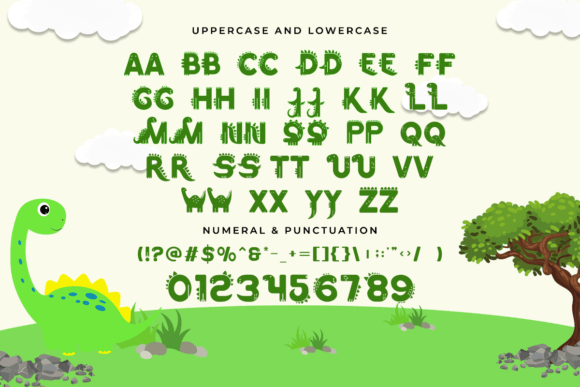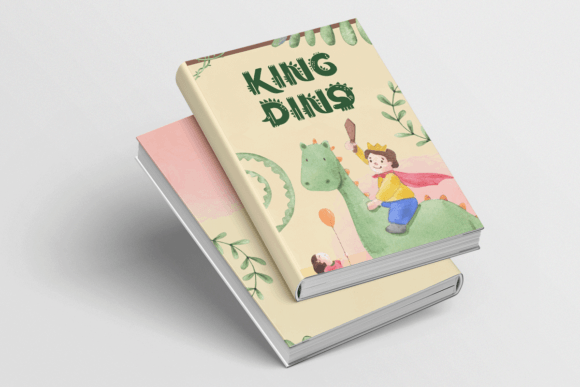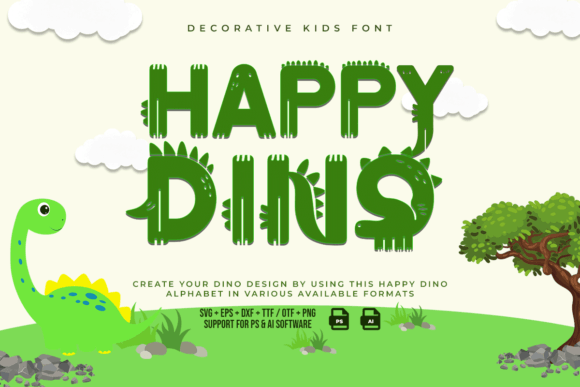
Bring Joy and Excitement to Your Projects with Happy Dino Modern Dino Kids Font!
Are you looking for a fun and engaging font to add a touch of excitement to your designs? Look no further than the Happy Dino Modern Dino Kids Font! This lively and contemporary font is perfect for designers, crafters, and educators who want to bring a burst of happiness and prehistoric fun to their projects.
Perfect for Children’s Books and Educational Materials
The Happy Dino Modern Dino Kids Font is ideal for children’s books, educational materials, and other projects that require a fun and engaging design. The font features cheerful dinosaur characters that are sure to captivate and engage young readers, making learning and creativity a delightful experience. Whether you’re creating a children’s book, a worksheet, or a educational poster, this font is sure to add a touch of excitement and joy to your design.
More Than Just a Font
The Happy Dino Modern Dino Kids Font is more than just a font – it’s a design experience. With its PUA encoding, you can access all of the cute glyphs and swashes with ease, allowing you to create unique and engaging designs that will stand out from the crowd. The font is perfect for a variety of projects, including:
• Children’s books and educational materials
• Party invitations and decorations
• Worksheets and educational posters
• Craft projects and DIY designs
Key Features of Happy Dino Modern Dino Kids Font
The Happy Dino Modern Dino Kids Font has several key features that make it the perfect choice for designers and crafters. Some of the key features include:
• PUA encoded for easy access to glyphs and swashes
• Cheerful dinosaur characters that are sure to engage young readers
• Lively and contemporary design that’s perfect for kids’ projects
• Perfect for children’s books, educational materials, party invitations, and more
Why Choose Happy Dino Modern Dino Kids Font?
There are many fonts to choose from, but the Happy Dino Modern Dino Kids Font stands out from the crowd. Here are just a few reasons why:
• Unique and engaging design that’s sure to capture the attention of young readers
• PUA encoding makes it easy to access all of the glyphs and swashes
• Perfect for a variety of projects, from children’s books to party invitations
• High-quality design that’s easy to read and use
Tips for Using Happy Dino Modern Dino Kids Font
Here are a few tips for using the Happy Dino Modern Dino Kids Font in your designs:
• Use it to create eye-catching headings and titles that will grab the attention of young readers
• Pair it with other fun and playful fonts to create a unique and engaging design
• Use the glyphs and swashes to add a touch of personality to your design
• Experiment with different colors and textures to bring your design to life
The Happy Dino Modern Dino Kids Font is a fun and engaging font that’s perfect for designers, crafters, and educators who want to bring a burst of happiness and prehistoric fun to their projects. With its PUA encoding, cheerful dinosaur characters, and lively design, this font is sure to captivate and engage young readers. Whether you’re creating a children’s book, a worksheet, or a party invitation, the Happy Dino Modern Dino Kids Font is the perfect choice. So why wait? Download the Happy Dino Modern Dino Kids Font today and start bringing joy and excitement to your designs!